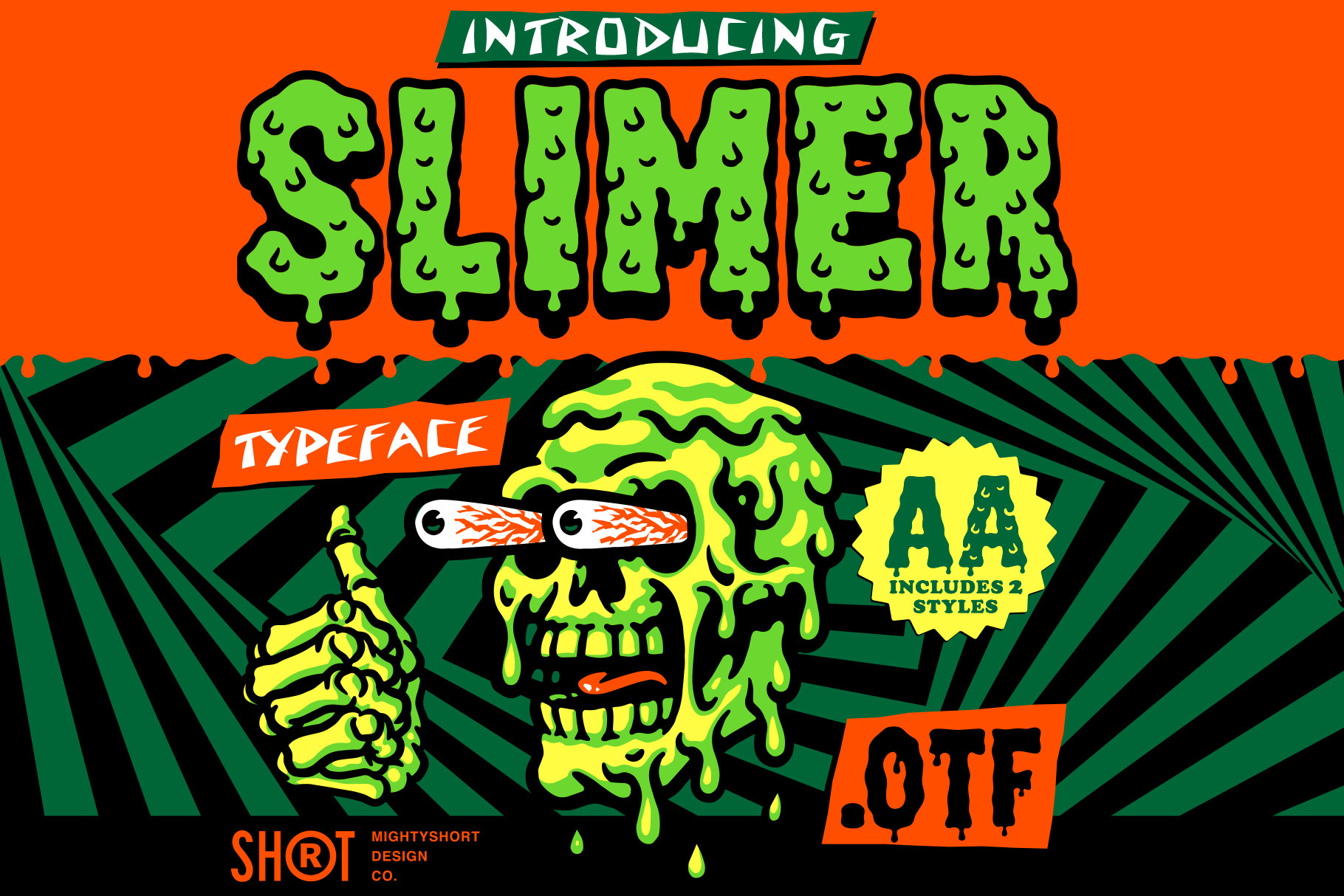
Slimer Typeface
“Slimer” is a typeface inspired by the Slime, this viscous and soft matter 90’s kids play with. The typeface includes 2 fonts: Slimer Regular and Slimer Extra. The 2 fonts come with uppercase, lowercase, numbers, punctuation and some alternate characters.
It’s time to get Slimed!